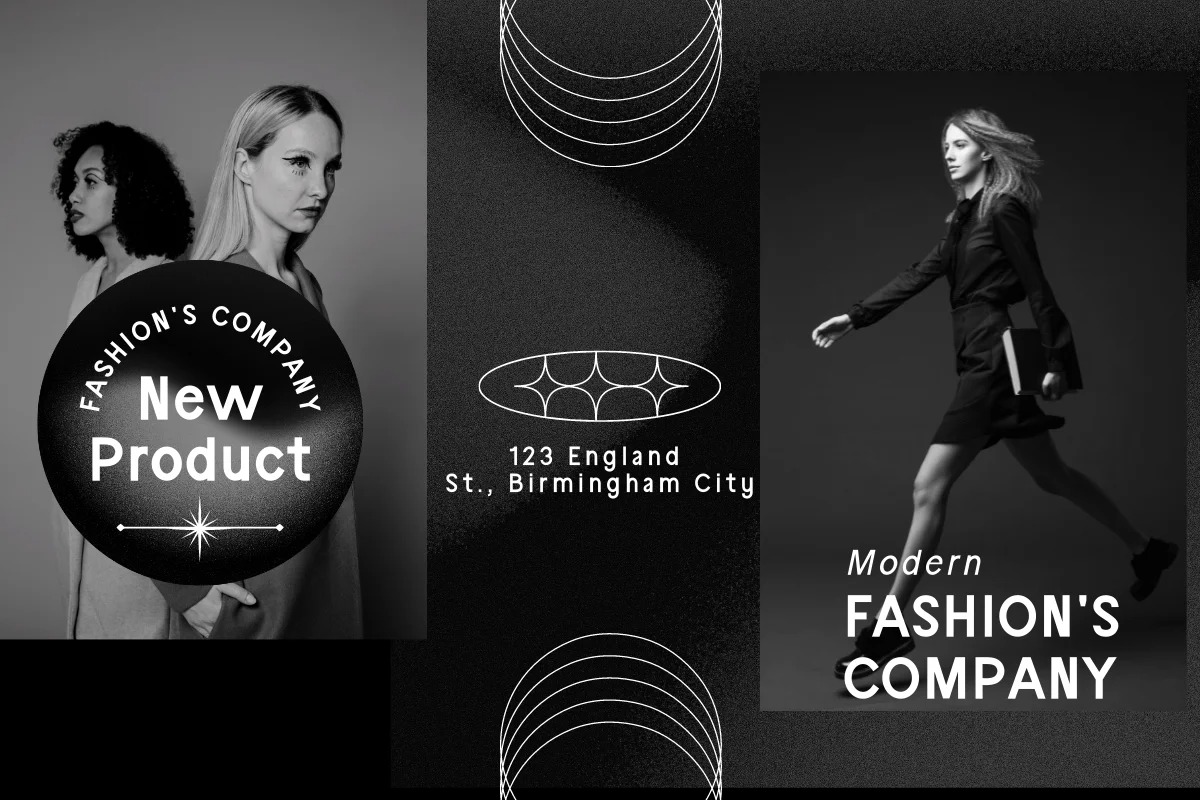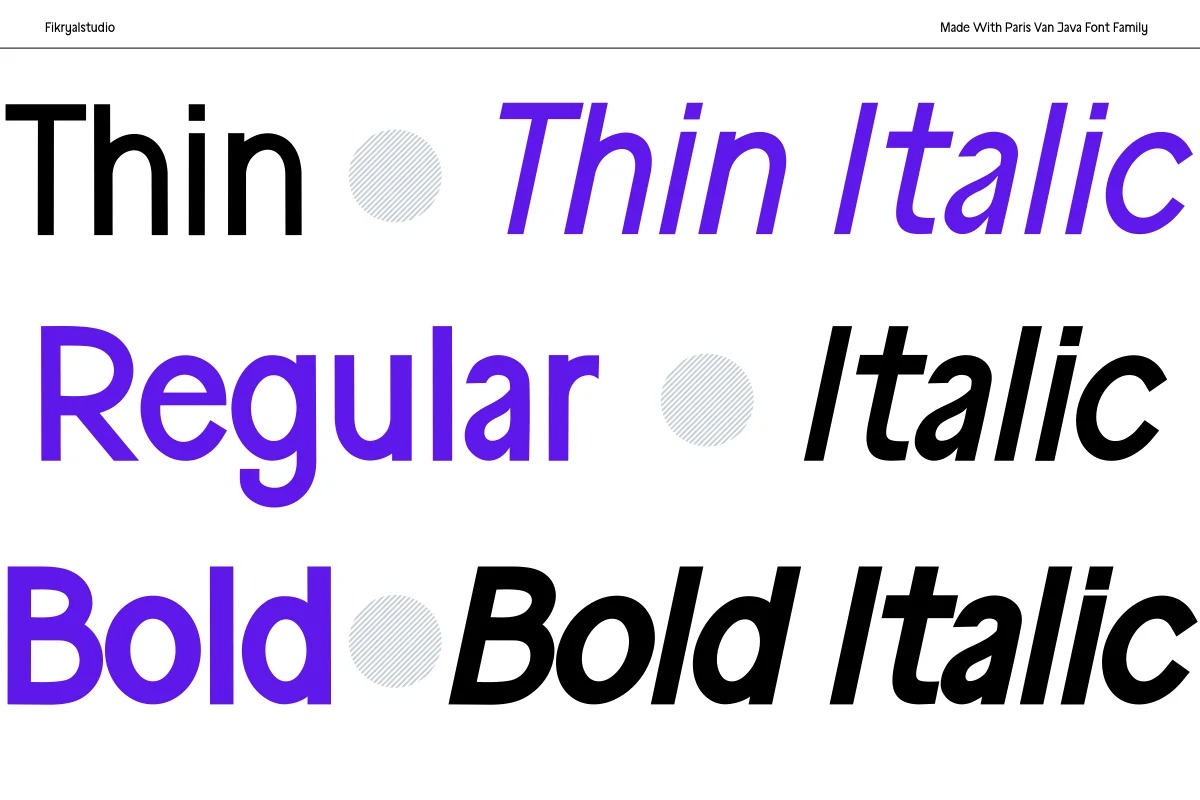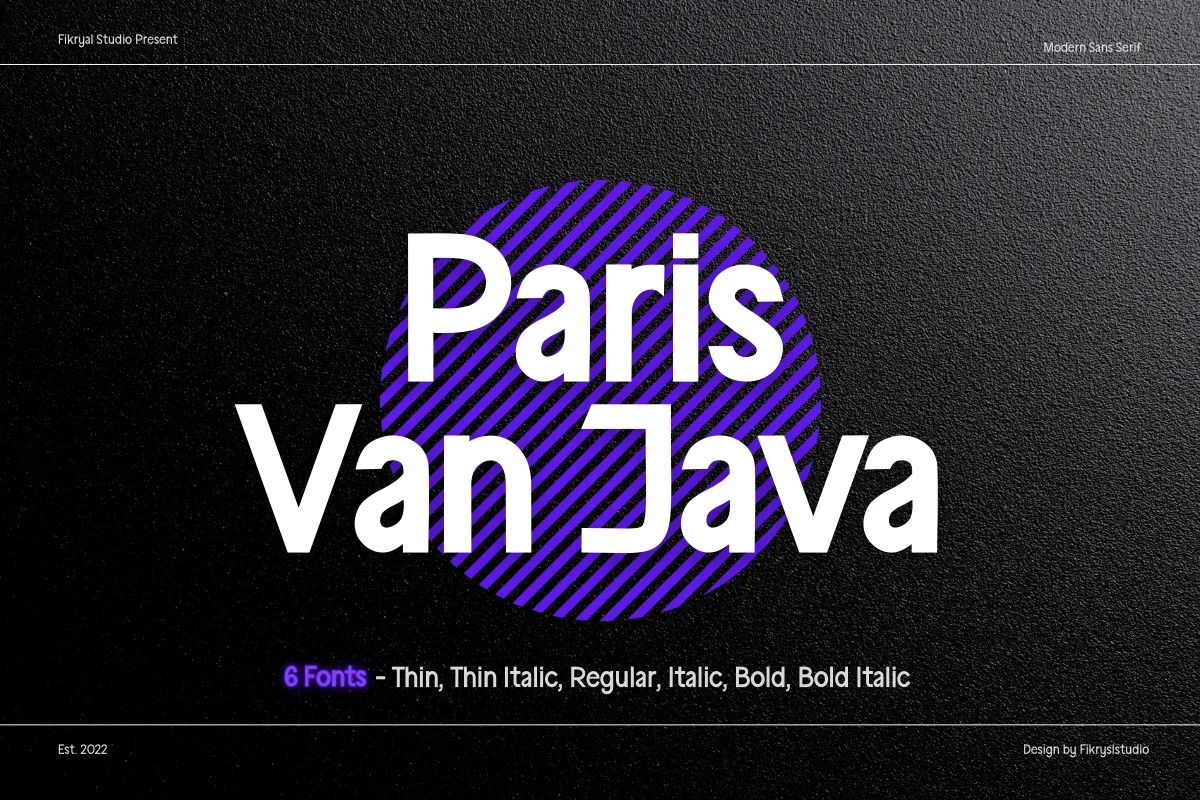
Paris Van Java Sans Serif Font
It’s a terrific opportunity to take advantage of designers or product owners who are looking for a way to make their ideas more classic and elegant. Introducing Paris Van Java font family. Paris Van Java comes with 6 styles of font that is: Thin, Thin Italic, Regular, Italic, Bold, Bold italic. Very suitable to be applied in various aspects of design, Also it’s perfect for logo, branding, title, social media posts, advertisements, product packaging, product designs, label, photography, watermark, special event, magazine, web designs, etc.